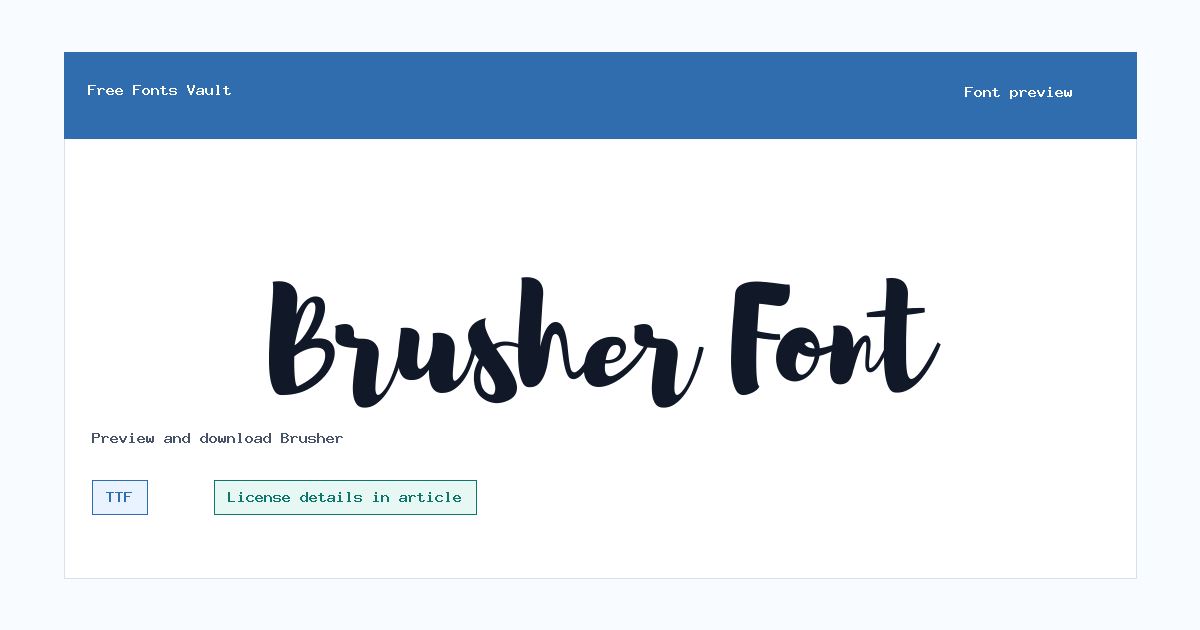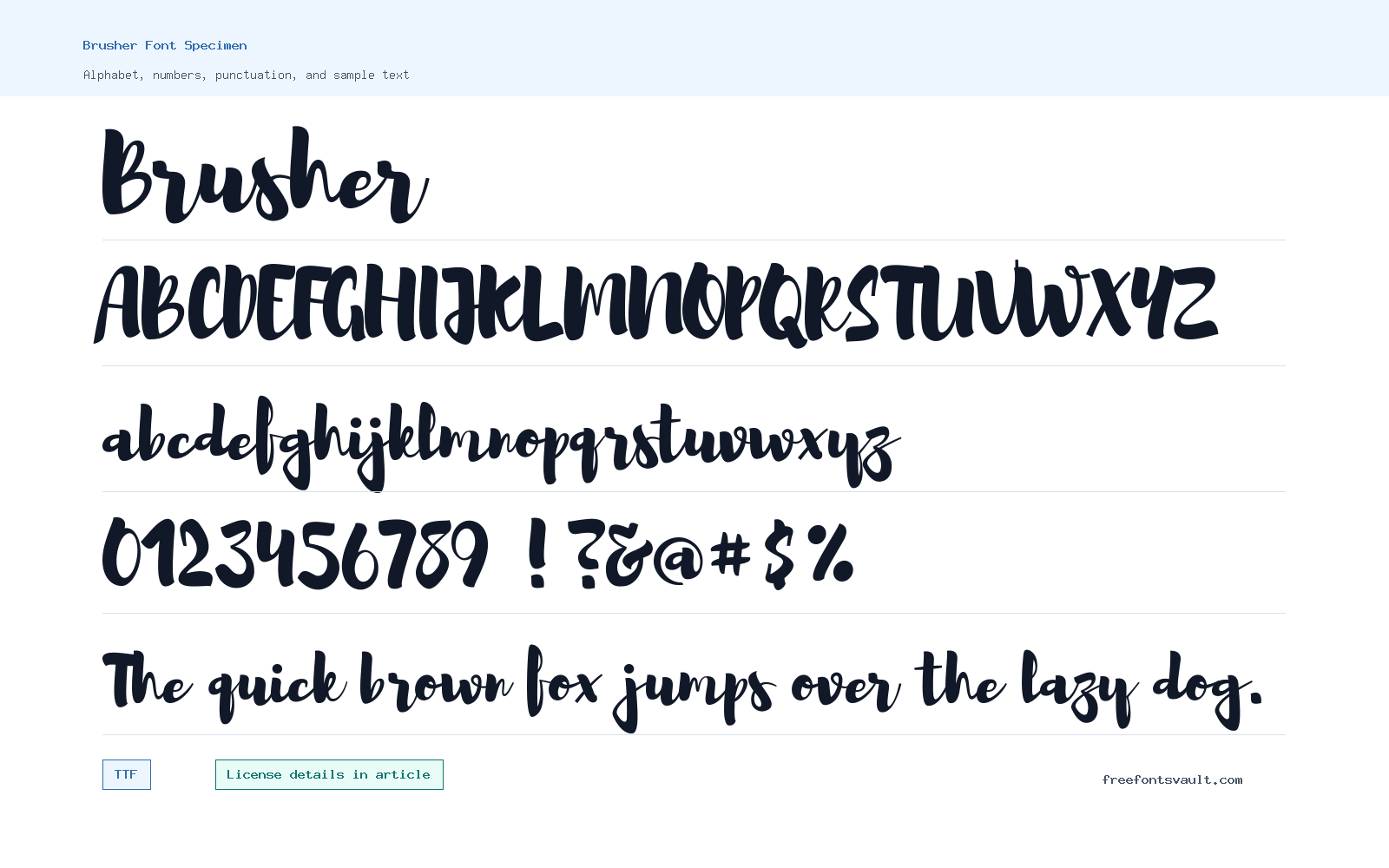
Brusher
Brusher font.
Brusher is a display font with a brush-style look that works best when you want text to feel handmade, bold, and energetic. It is most useful for short words, names, titles, and graphic text where personality matters more than long-form reading.
About Brusher Font
Brusher uses a casual brushed script feel, making it a better choice for expressive display work than for body copy. The strokes give words a hand-lettered tone, so it can suit logo drafts, packaging mockups, social graphics, poster headlines, stickers, badges, and website hero text. Because the style is decorative, it is strongest at larger sizes where the brush texture and letter shapes have room to show clearly.
Use the preview tool to test the exact words you plan to set before downloading. Brush fonts can change a lot depending on the letters used: some words feel balanced, while others may need extra spacing or a different capitalization style. Try uppercase and lowercase options, check punctuation if your design needs it, and preview longer names before using the font in a final layout. For cleaner results, pair Brusher with a simple sans serif or neutral serif for supporting text, then keep Brusher for the main headline or accent line.
- Brush-inspired display lettering suited to short, high-impact text
- Logos, badges, labels, and title graphics that need a handmade brush feel
- Posters, social media images, thumbnails, and short promotional headlines
What kind of font is Brusher?
Brusher is a brush-style display font. It is meant for expressive short text such as names, headings, logos, poster titles, and graphic accents rather than long paragraphs.
Is Brusher good for body text?
It is not the best choice for body text. Brush display fonts are easier to read in short lines and larger sizes. Use a simpler font for paragraphs, captions, menus, and small text.
How should I pair Brusher with another font?
Use Brusher for the main word or headline, then pair it with a clean sans serif or simple serif for supporting details. This keeps the design expressive without making every line compete for attention.
Should I adjust spacing when using Brusher?
Yes, preview your exact wording and adjust size, spacing, or line breaks if needed. Brush-style letters can look different from word to word, especially in tight layouts.